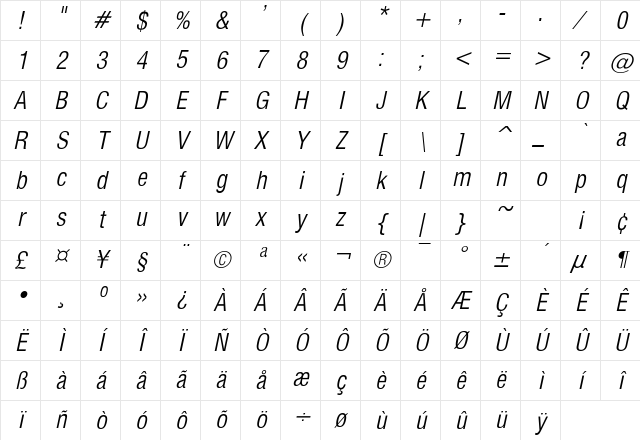
CorporateCondensed LightOblique
Design Context for CorporateCondensed
CorporateCondensed is a composed and adaptable typeface that performs quietly and consistently across a wide range of design contexts. The slanted form adds forward momentum and visual energy. Its slender proportions lend an understated elegance to any composition. Its narrow stance lets it pack a punch even in space-constrained designs.
Pro Tip: Use CorporateCondensed for emphasis, pull quotes, and subheadings where its slanted energy can add rhythm to the layout.